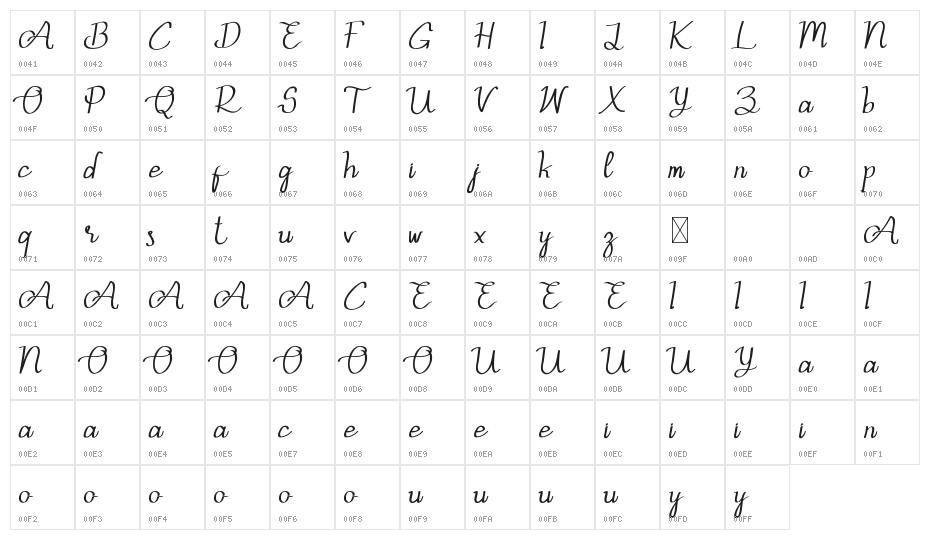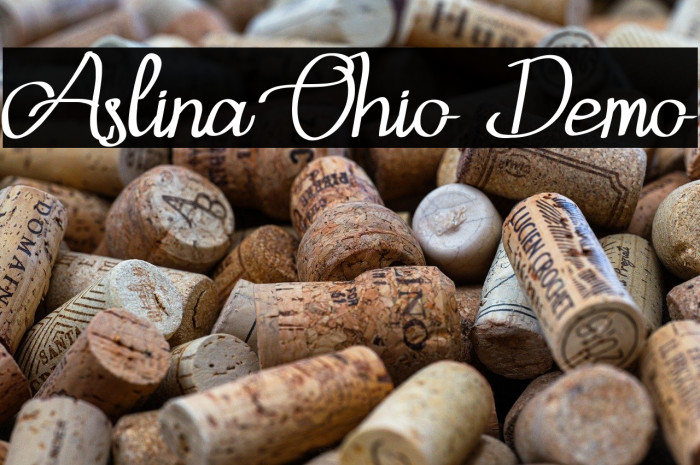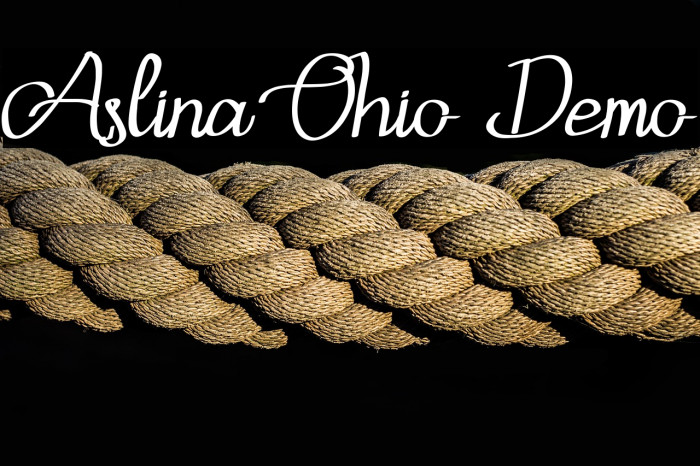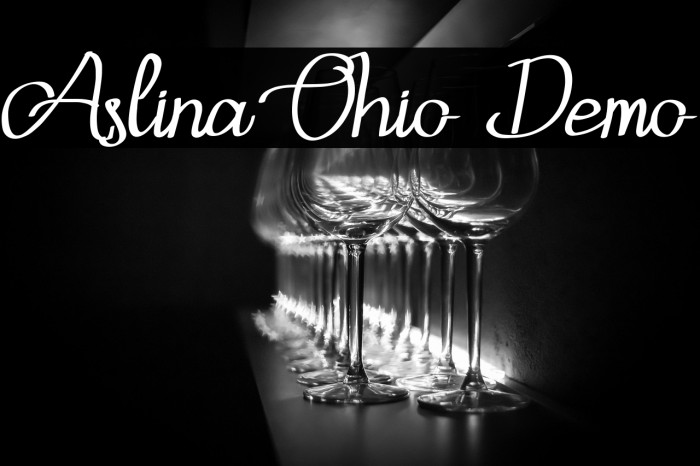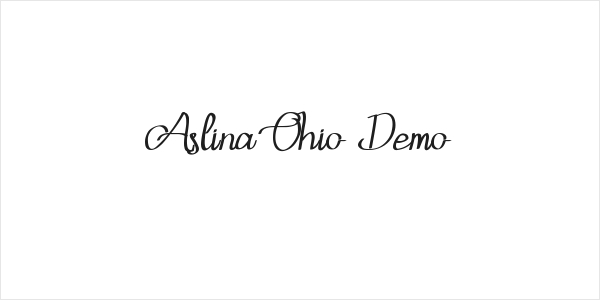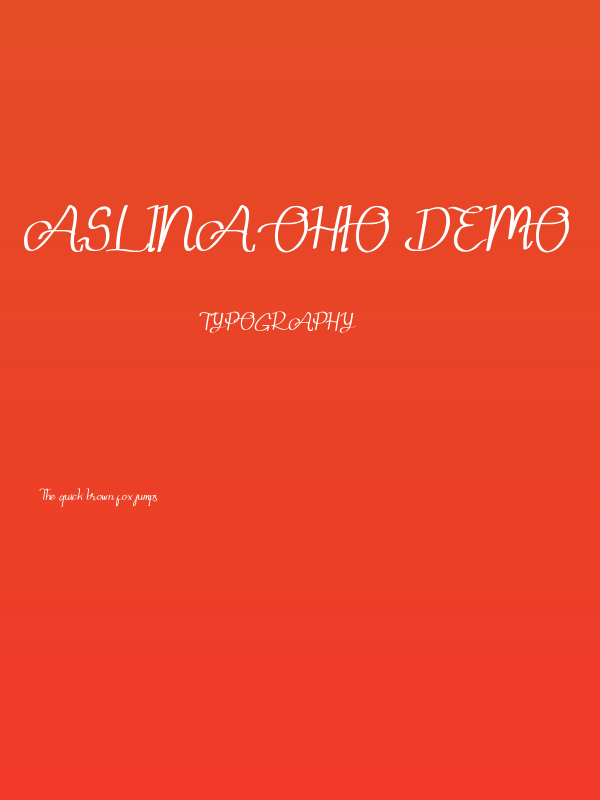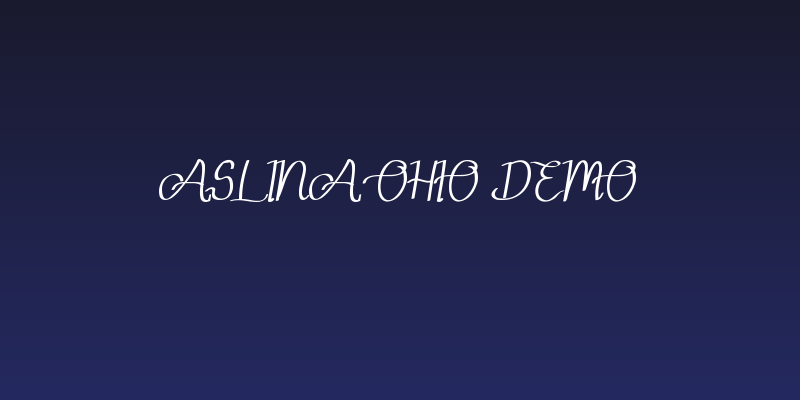
Aslina Ohio Demo Font
Aslina Ohio Demo Description
This font features an elegant and flowing script style, characterized by its smooth, cursive lines and graceful curves. The uppercase letters are slightly more ornate, with sweeping ascenders and descenders that add a touch of sophistication. The lowercase letters maintain a consistent flow, enhancing readability while retaining a stylish appearance. The font's design is reminiscent of classic calligraphy, making it suitable for formal and decorative purposes. Its balanced proportions and moderate contrast in stroke thickness contribute to its legibility and aesthetic appeal.
| Proposed Projects | Ideal for wedding invitations, greeting cards, elegant branding, and decorative signage. |